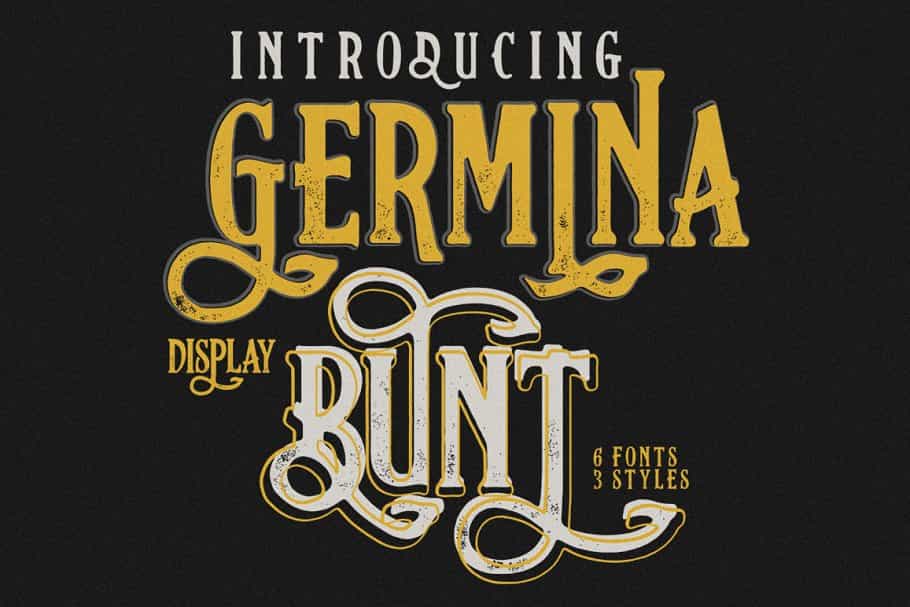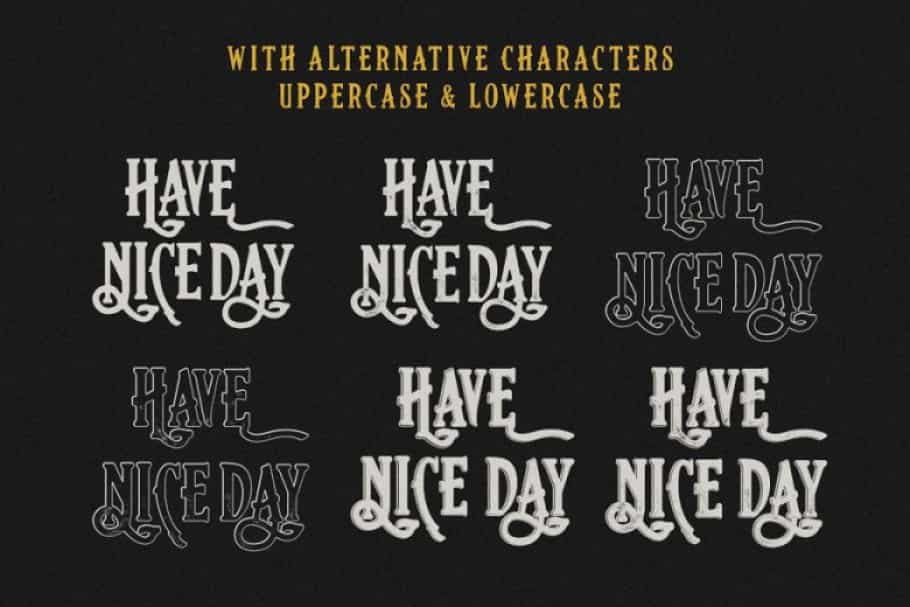
Presenting Germinabunt Font. The germinating seeds are written in an alternative character by hand. very appropriate for magazines, packaging, branding , website header, posters, greeting cards, letterhead and many other creative projects .